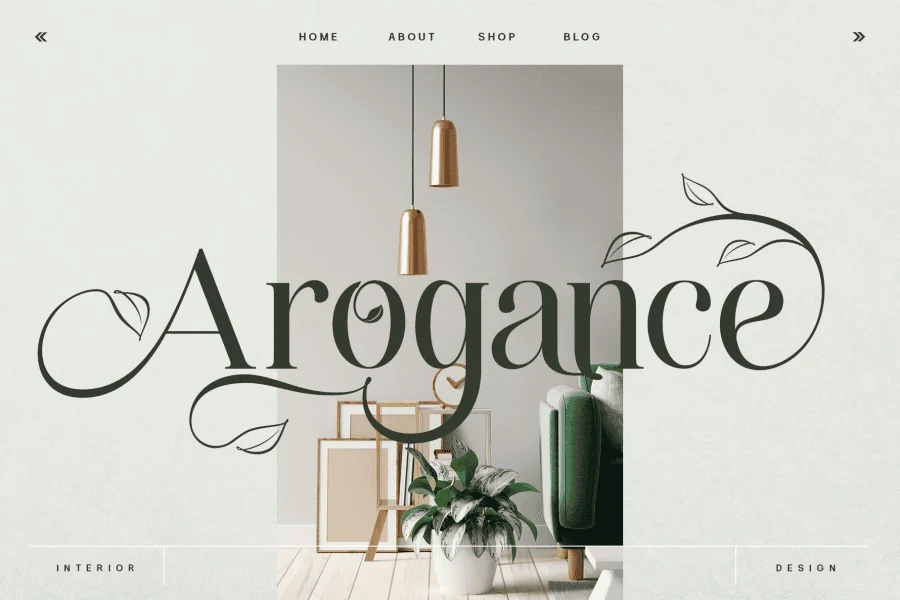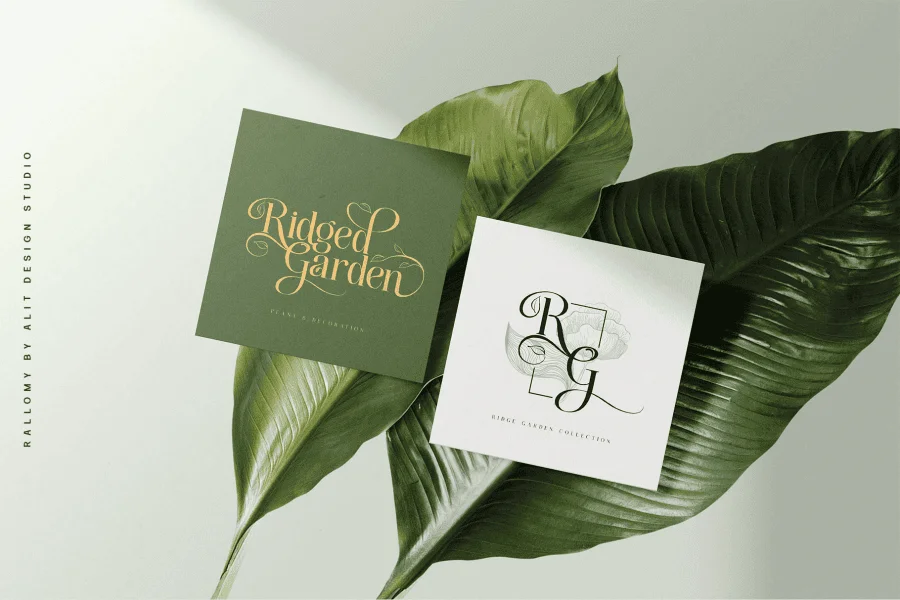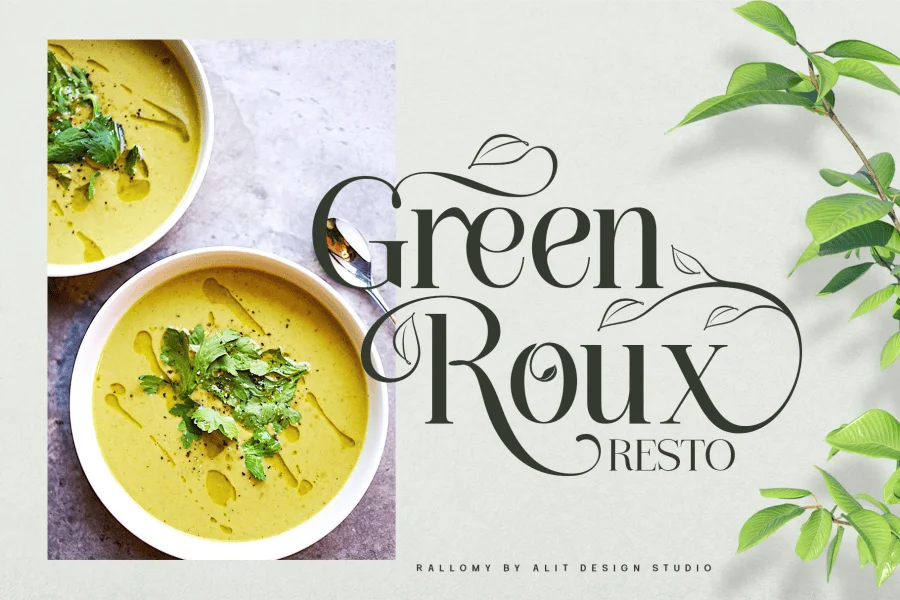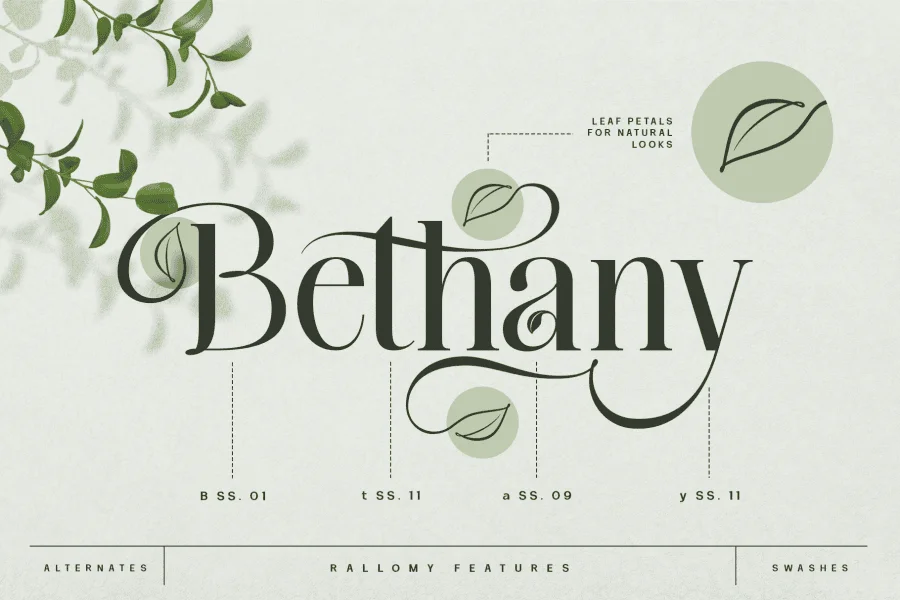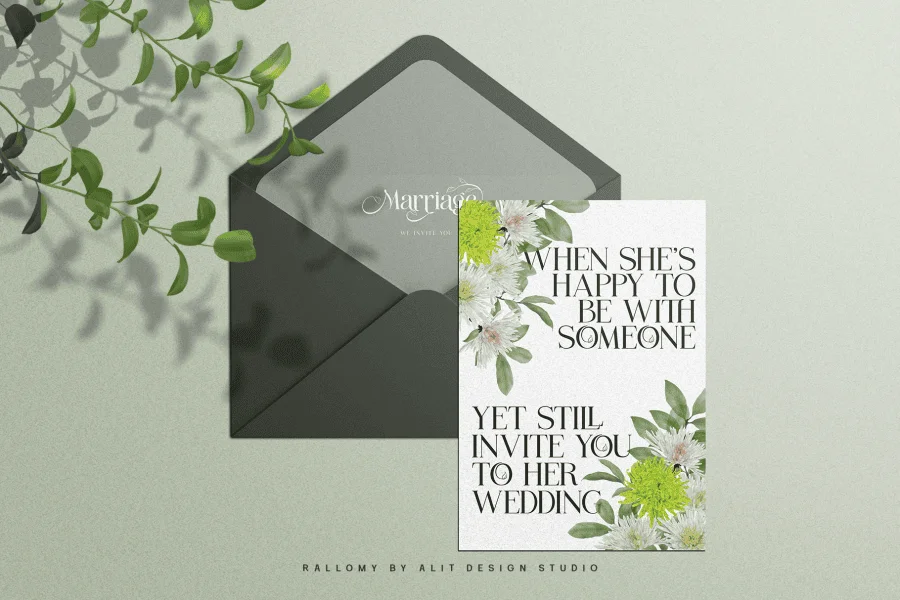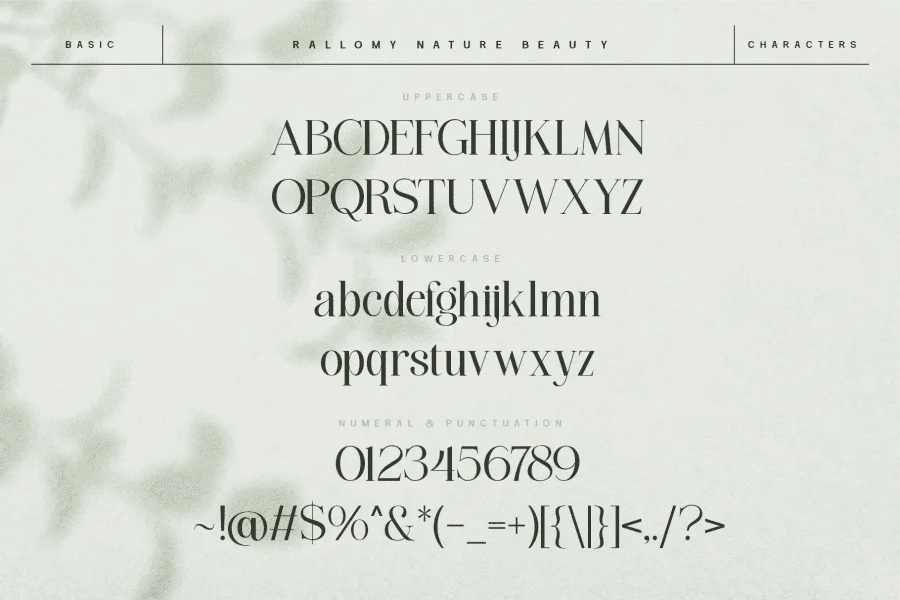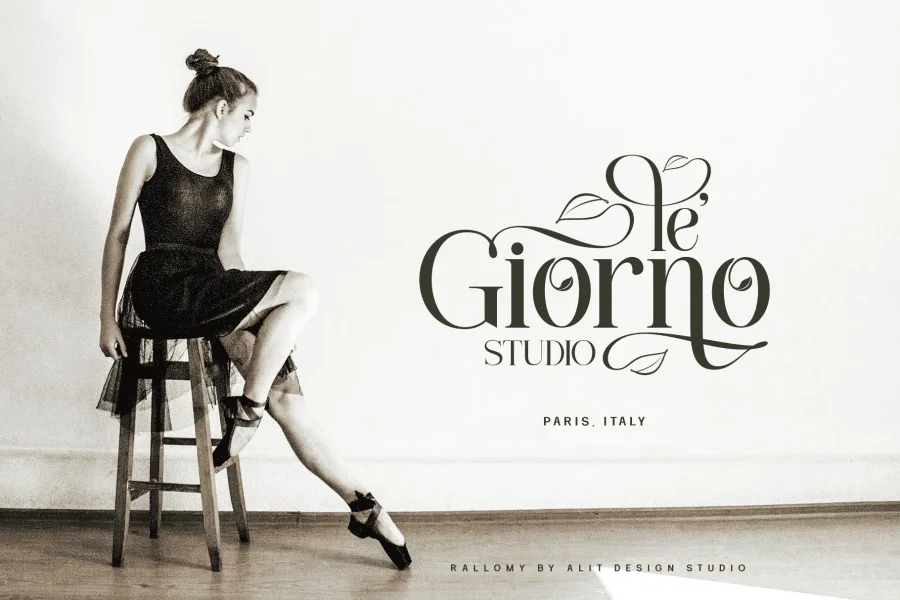
Rallomy is a serif font designed with the concept of nature’s beauty in mind. It has a dynamic alternating swash featuring a leaf symbol and a ligature system that ensures a harmonious combination of characters. This font is ideal for design projects that aim to capture the essence of nature.